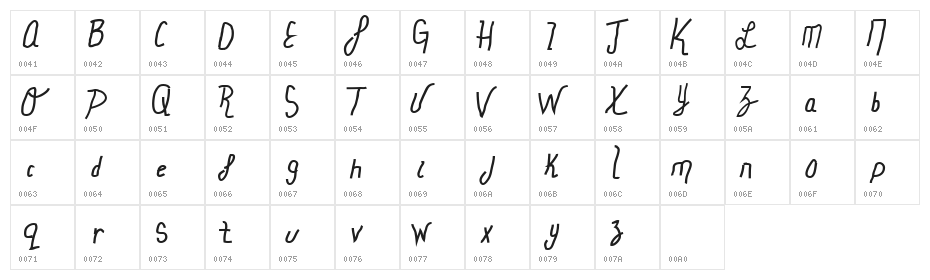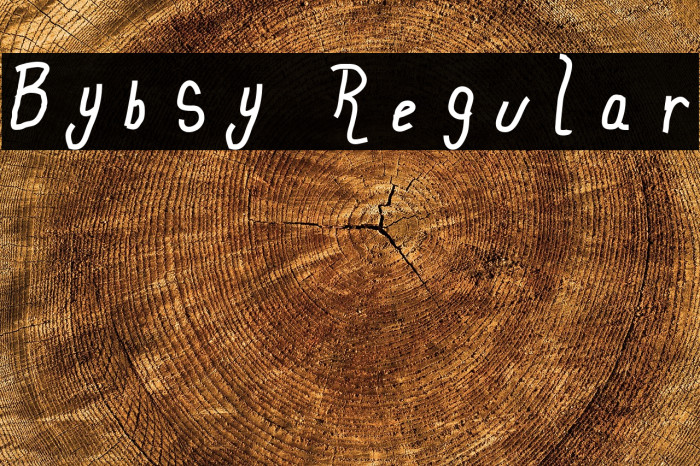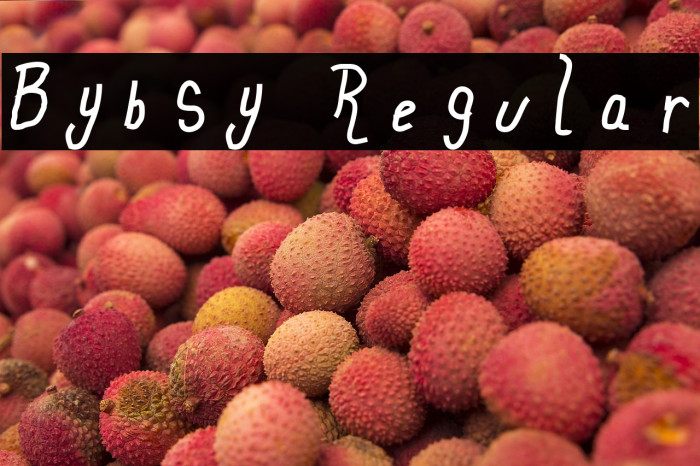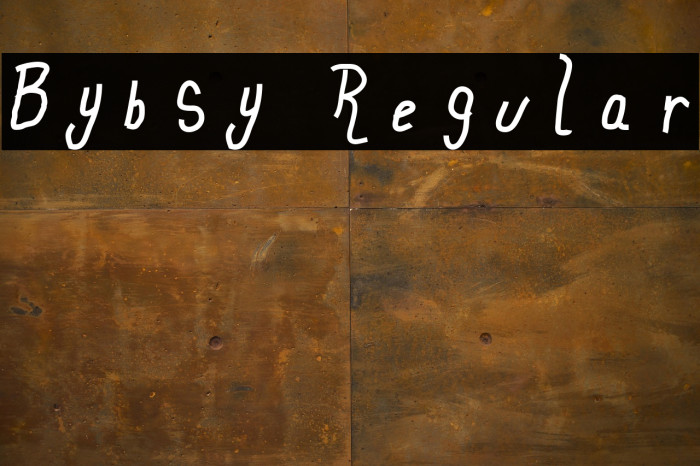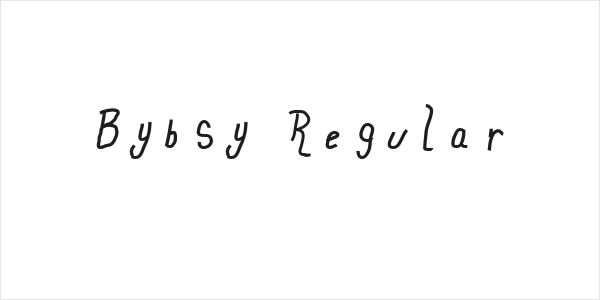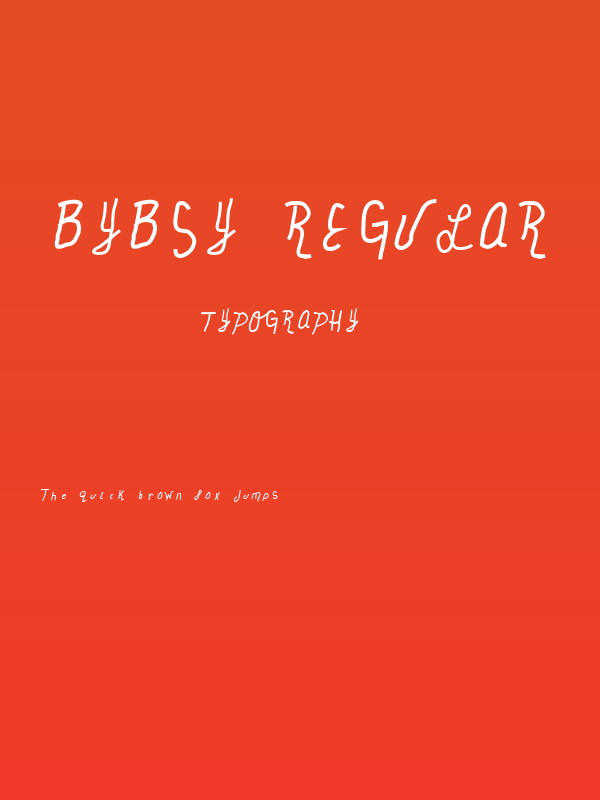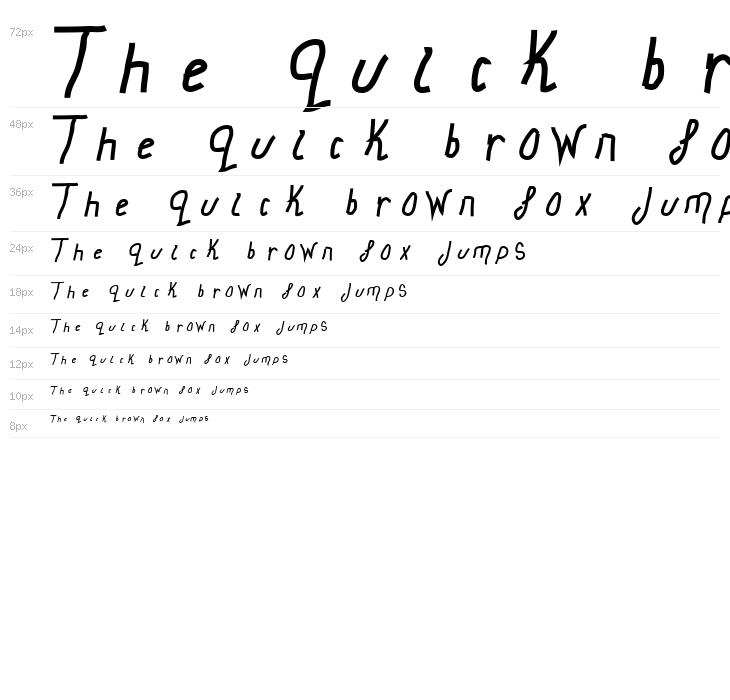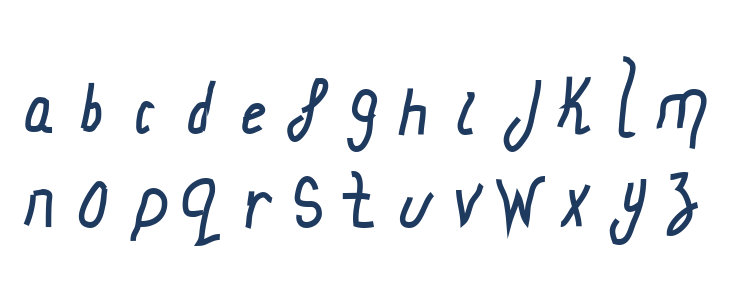
Bybsy Regular Font
Bybsy Regular Description
This font features a unique blend of playful and artistic elements, characterized by its irregular and dynamic letterforms. The uppercase and lowercase letters exhibit a hand-drawn quality, with varying stroke widths that add a sense of movement and energy. The characters are slightly tilted, giving an informal and whimsical appearance. The font includes a full set of uppercase and lowercase letters, numbers, and a selection of special characters, making it versatile for creative projects. Its distinctive style is suitable for designs that aim to convey a sense of fun and creativity.
| Use Case | Logos, Headlines, Creative projects |
| Proposed Projects | Ideal for children's book covers, playful branding, creative posters, and artistic invitations. |